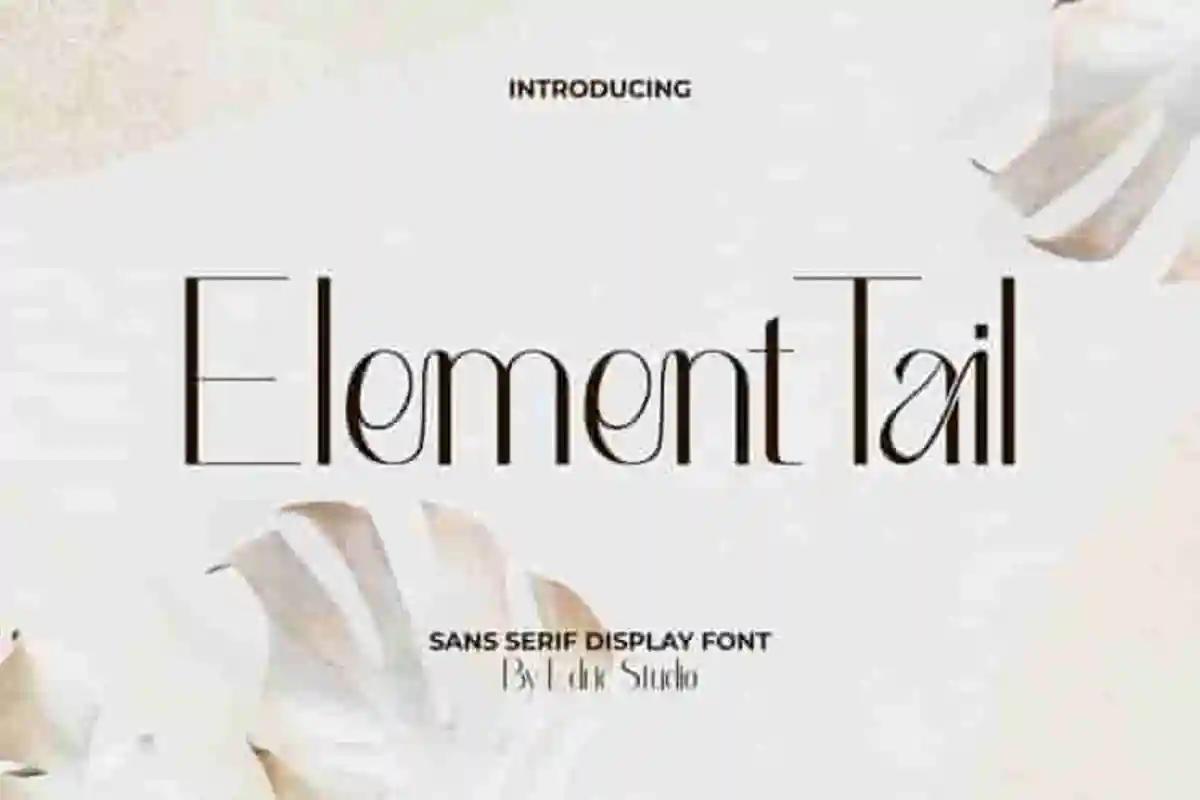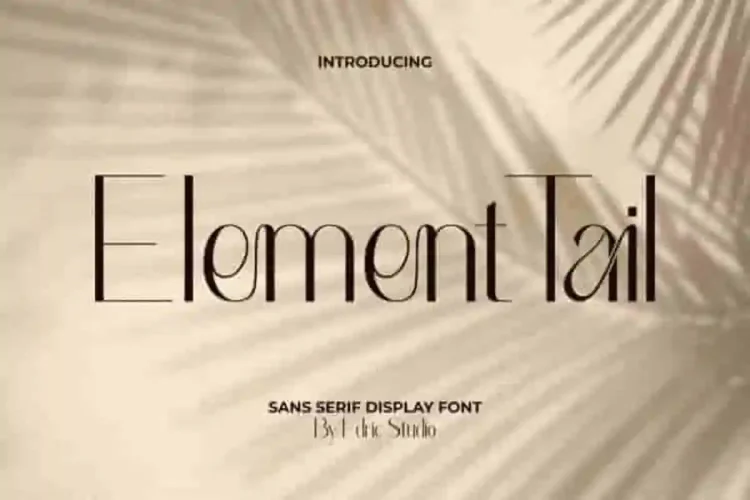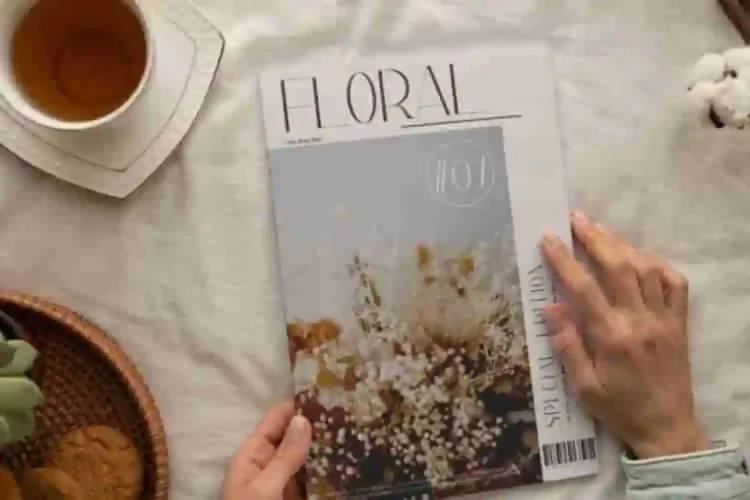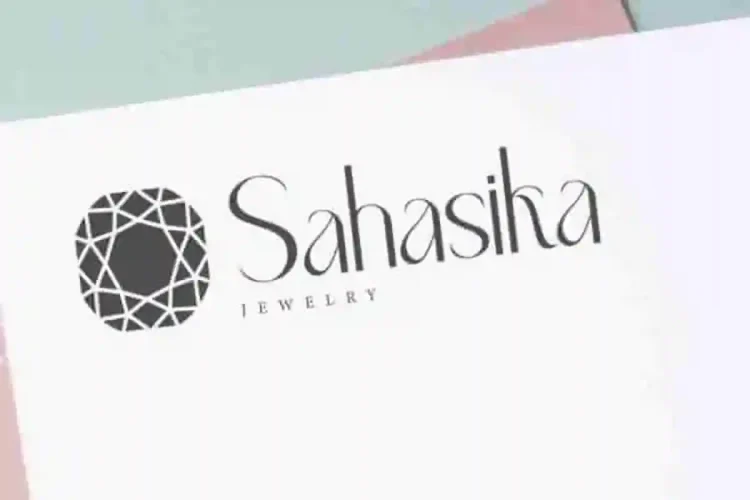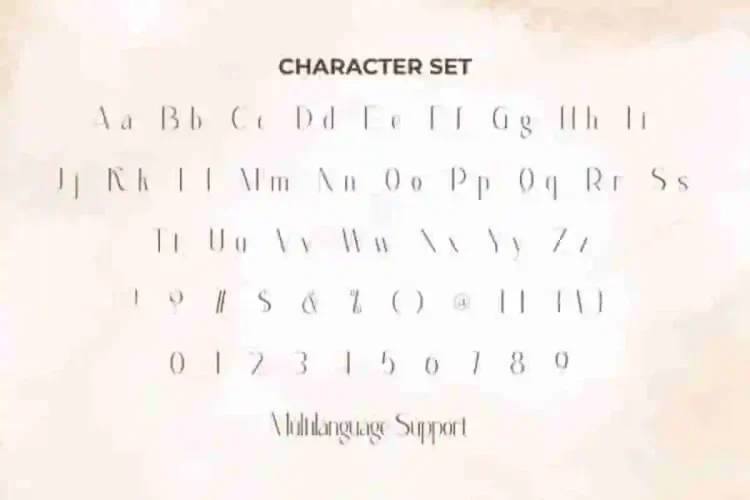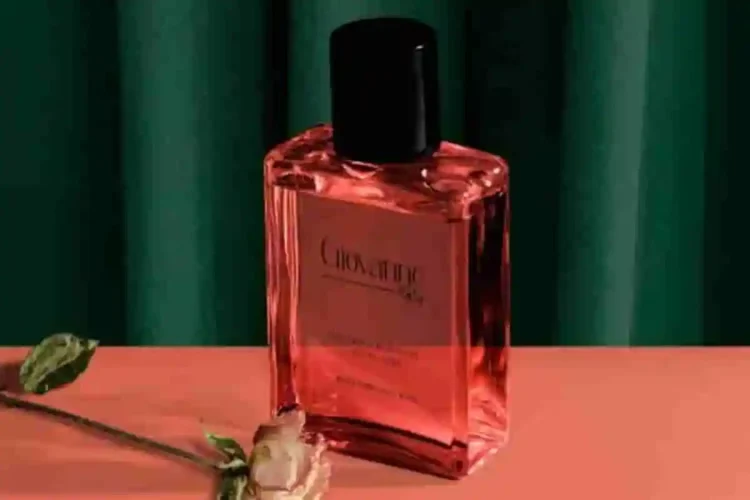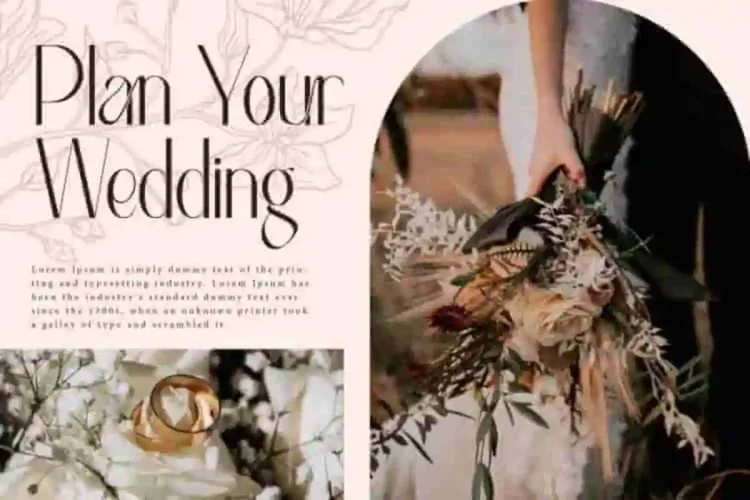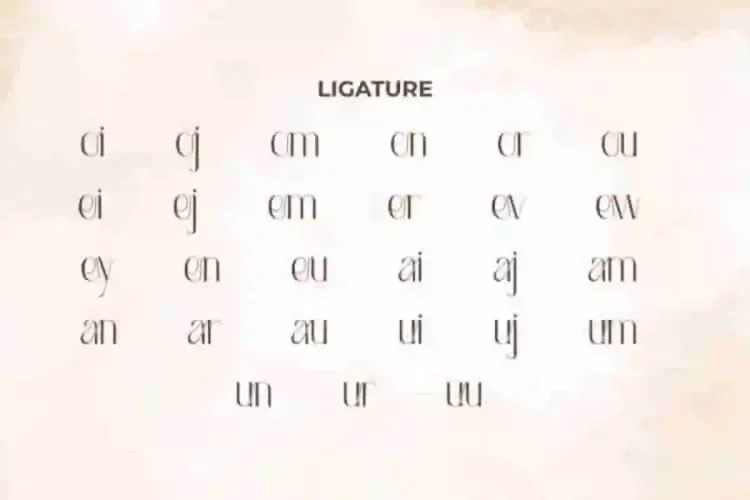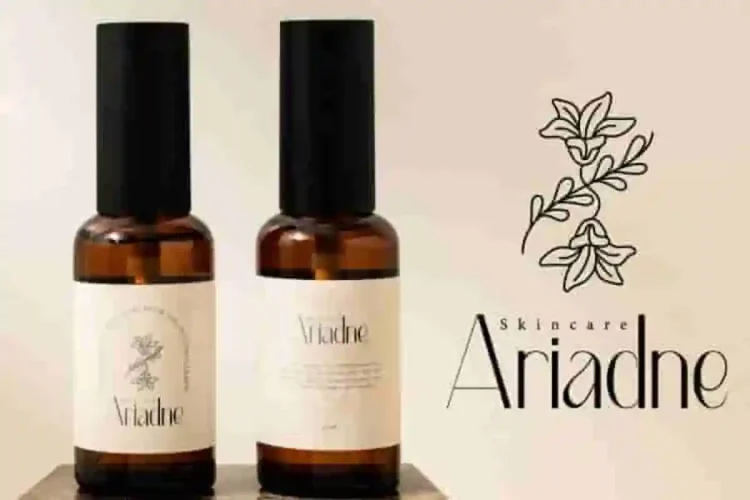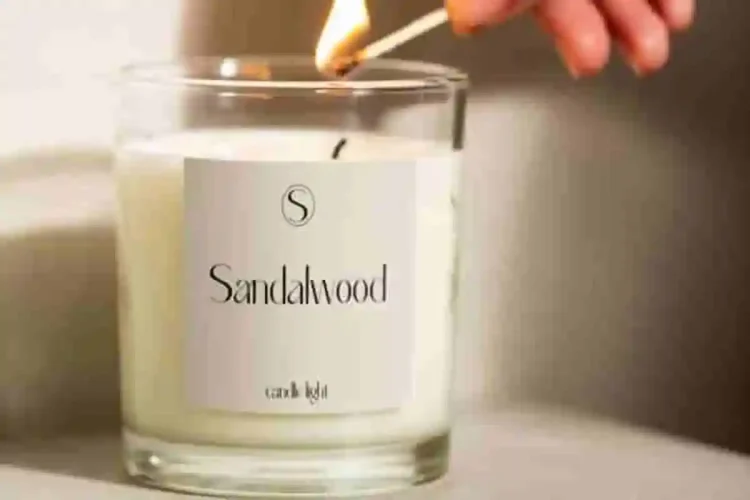
Element Tail Modern Display Font
Element Tail Modern Font is a stunning display font with beautiful ligature characters. Carefully designed with graceful ligatures and smooth curves, this font creates perfect letter connections that are thin, stylish, and refined.
Element Tail Modern Font comes with full set of Uppercase and Lowercase Basic Characters, Number, a large range of Punctuation, Symbol, and Ligature. It has a stunning characters set, perfectly managed with well spaced and kerning. Element Tail Modern Display Font will be able to complement for any project (with extended license) including: billboard, brand logo, brochure, catalogue, cover, greeting card, header, invitation, label, packaging design, quotes, screen print, signage, stationery, sticker, title, website, etc.